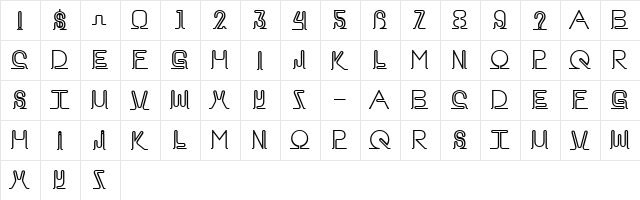
AA Neon Regular
| Foundry | Fenotypefaces |
| Designer | Erik Bertell |
Design Context for AA Neon Typeface
AA Neon has a distinctly futuristic character, with geometric precision and clean angles that feel at home in technology, gaming, and sci-fi contexts.